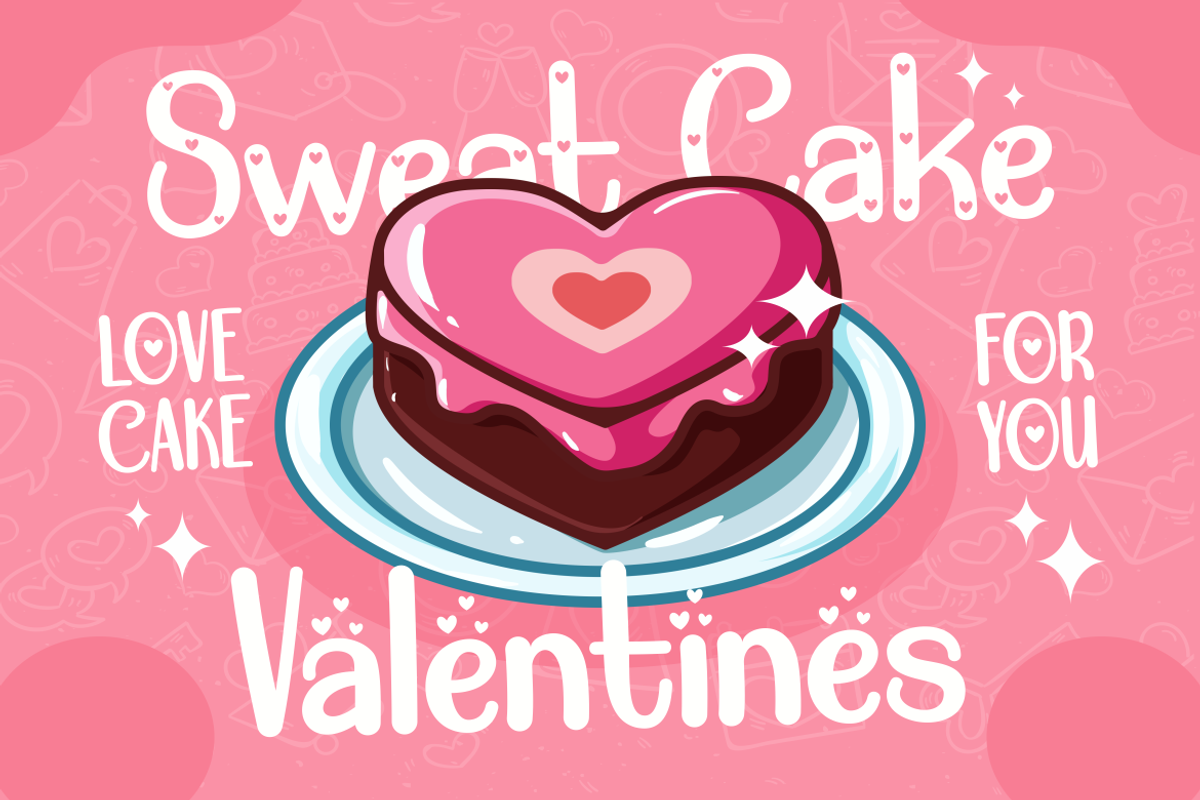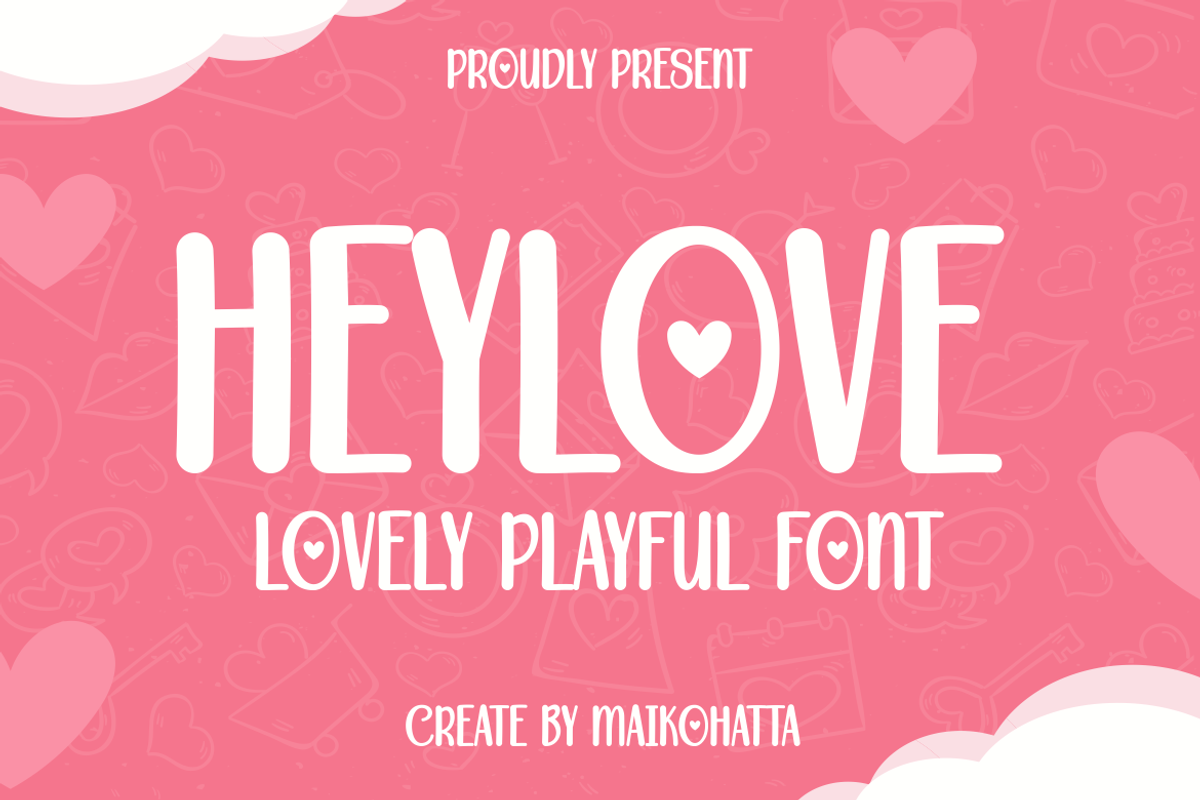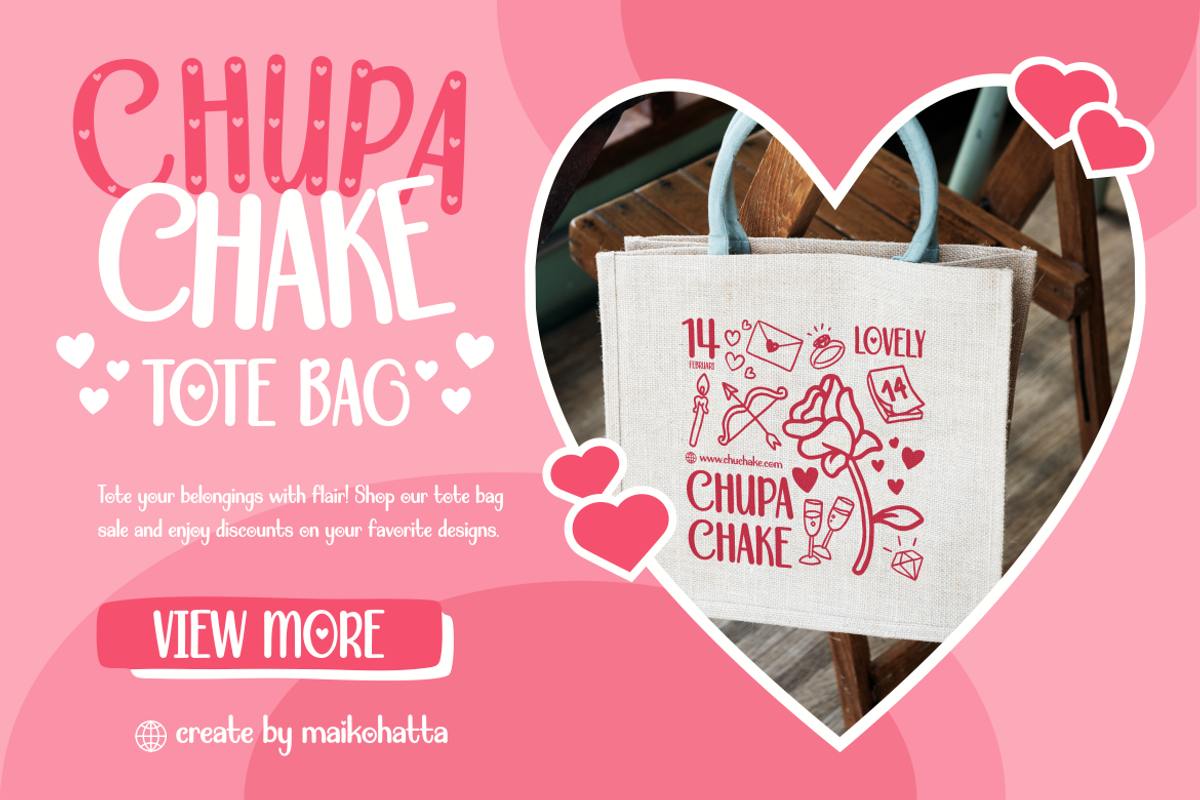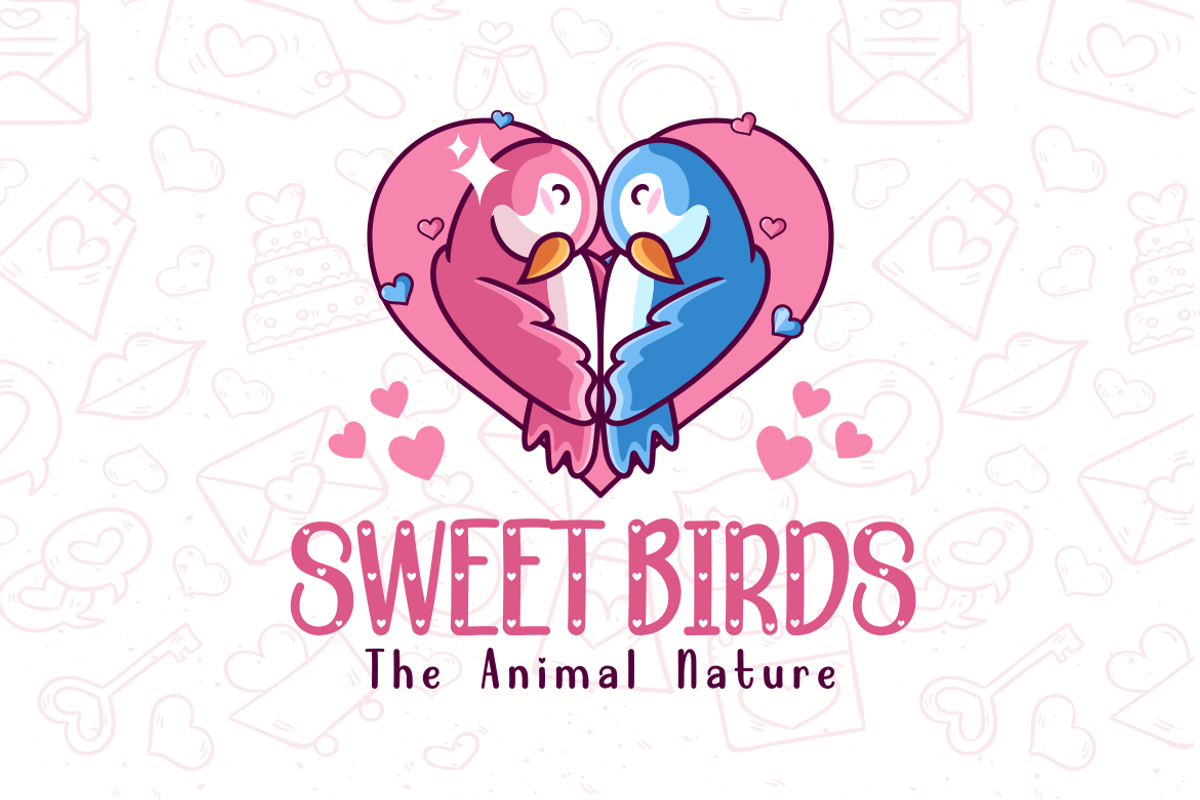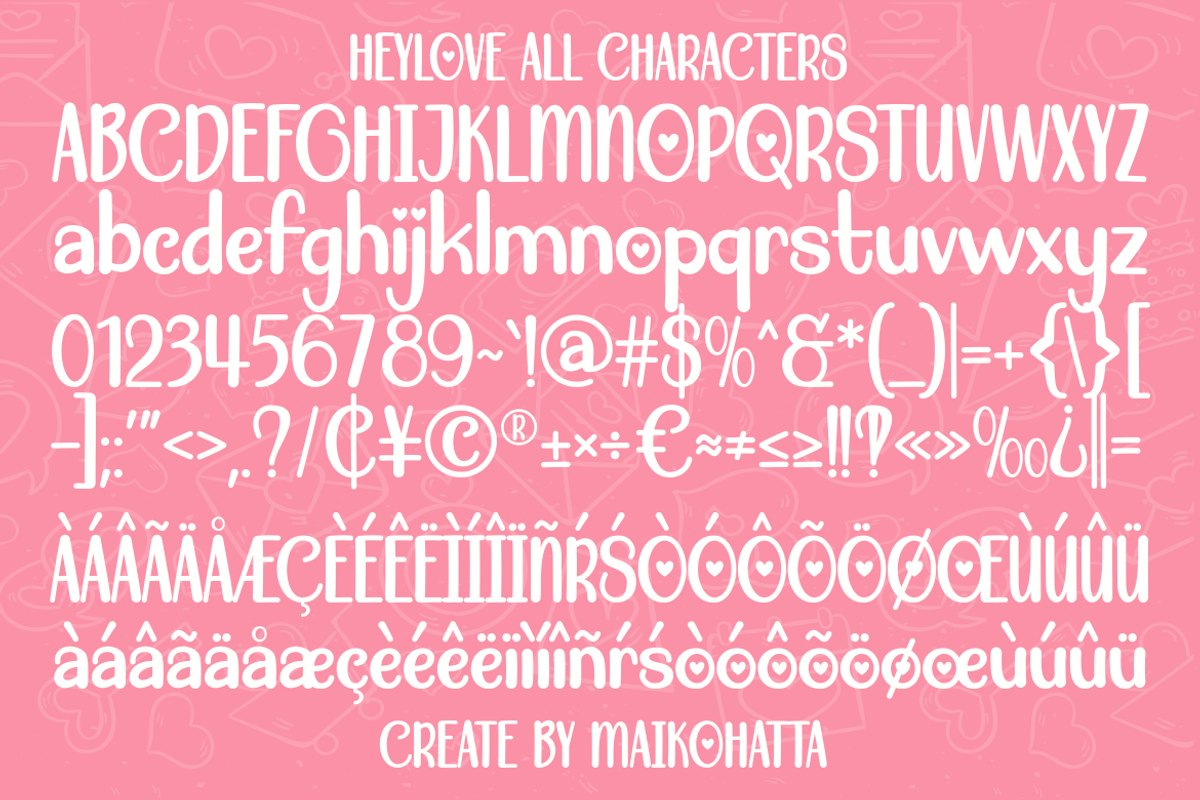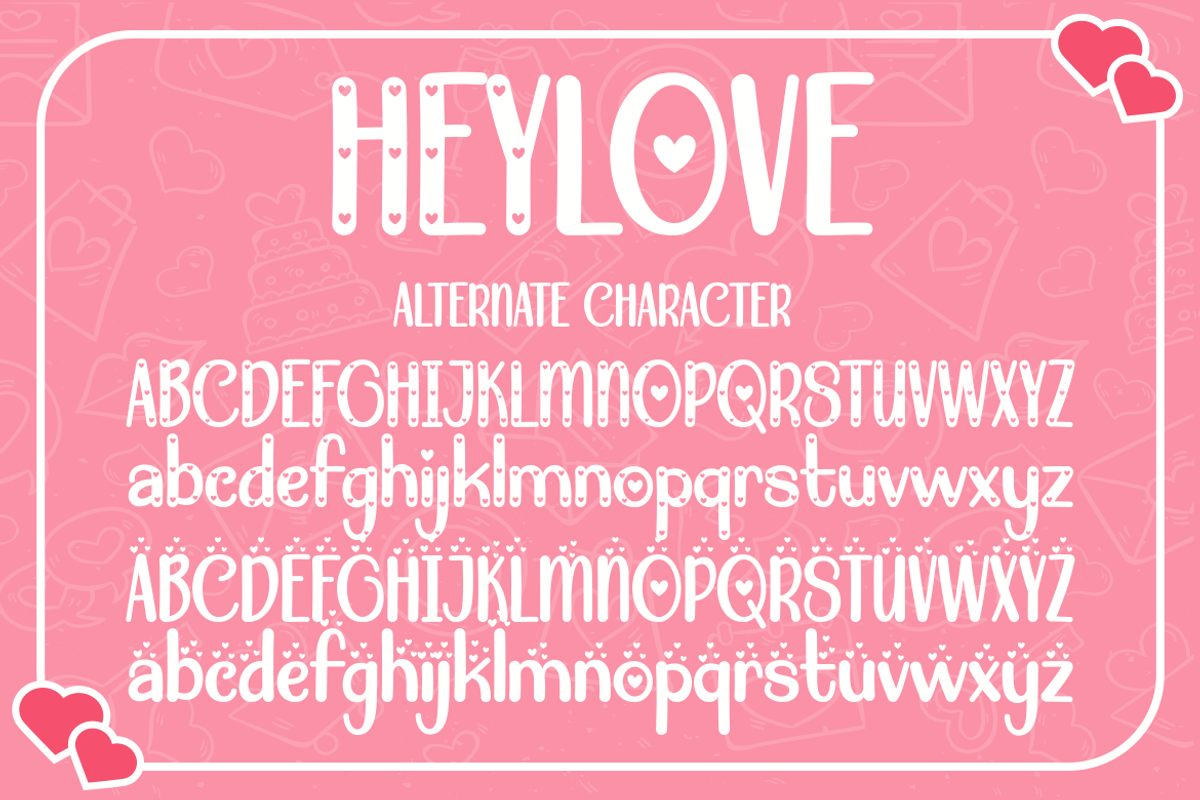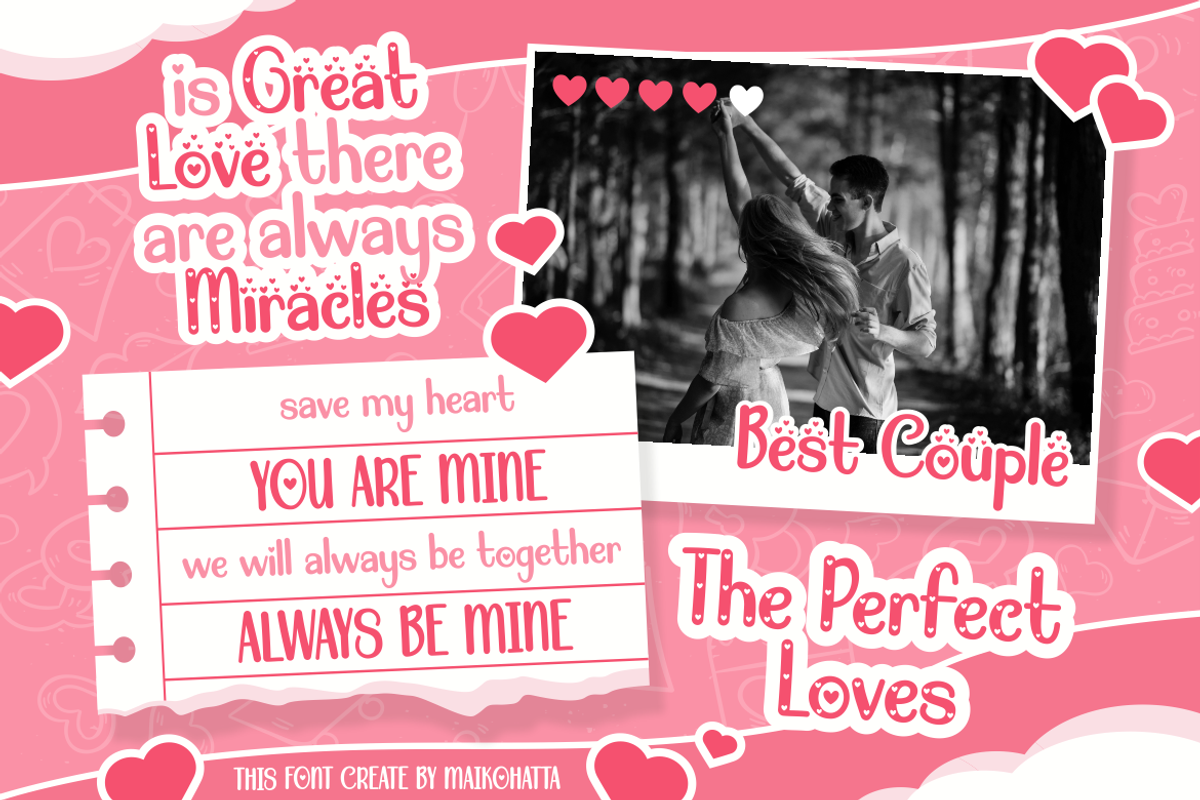
Heylove - Lovely Playful Font
Introducing our new product Heylove - Lovely Playful Font
This font is a typographic masterpiece that harmonizes elegance and sharpness. Every letter within this font is meticulously designed, with a keen focus on balanced proportions and impeccable alignment. This font is well-suited for a variety of contexts, such as print design, promotional materials, or magazine layouts.